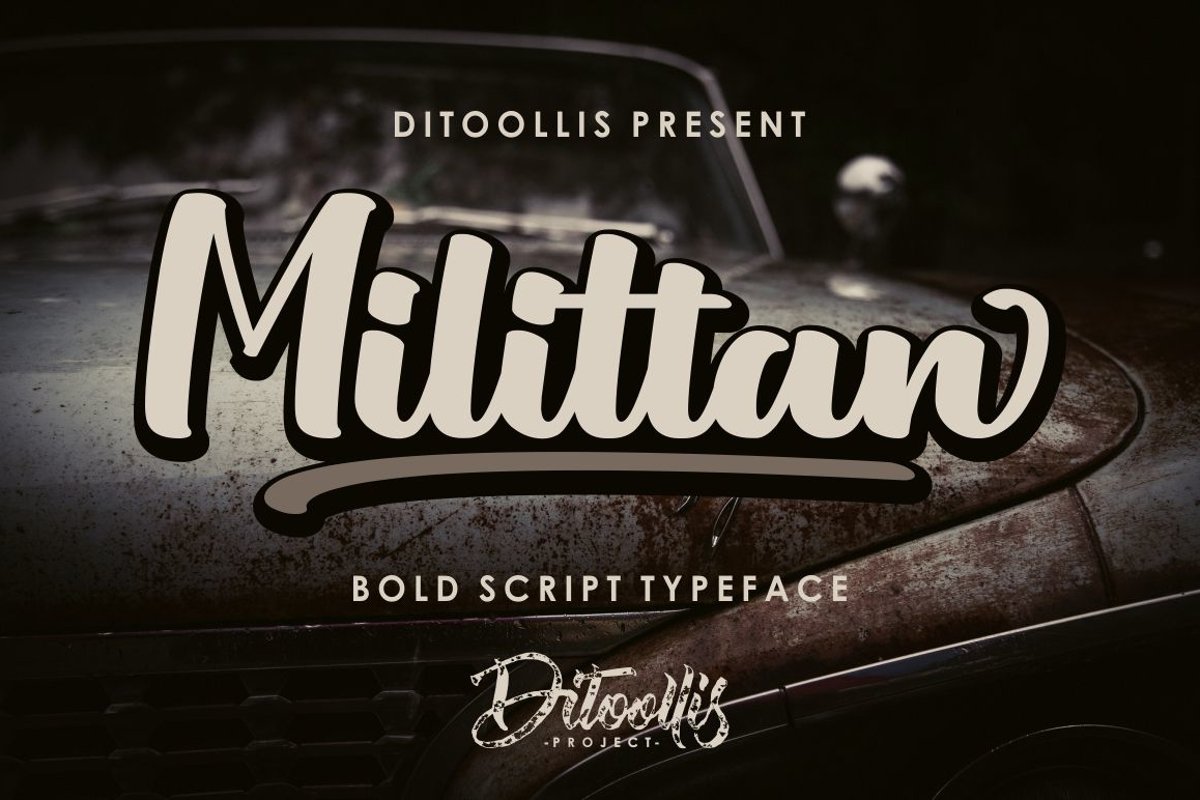
Milittan
Milittan Swash
Milittan
Introducing "Milittan"
This font, an elegant, modern and cool font
font that is very suitable to use for your design.
This font is also complete
- Numeric
and there are also
-  Swash
-  Alternates
-  Ligatures
ok that's a brief explanation of the "Milittan" font